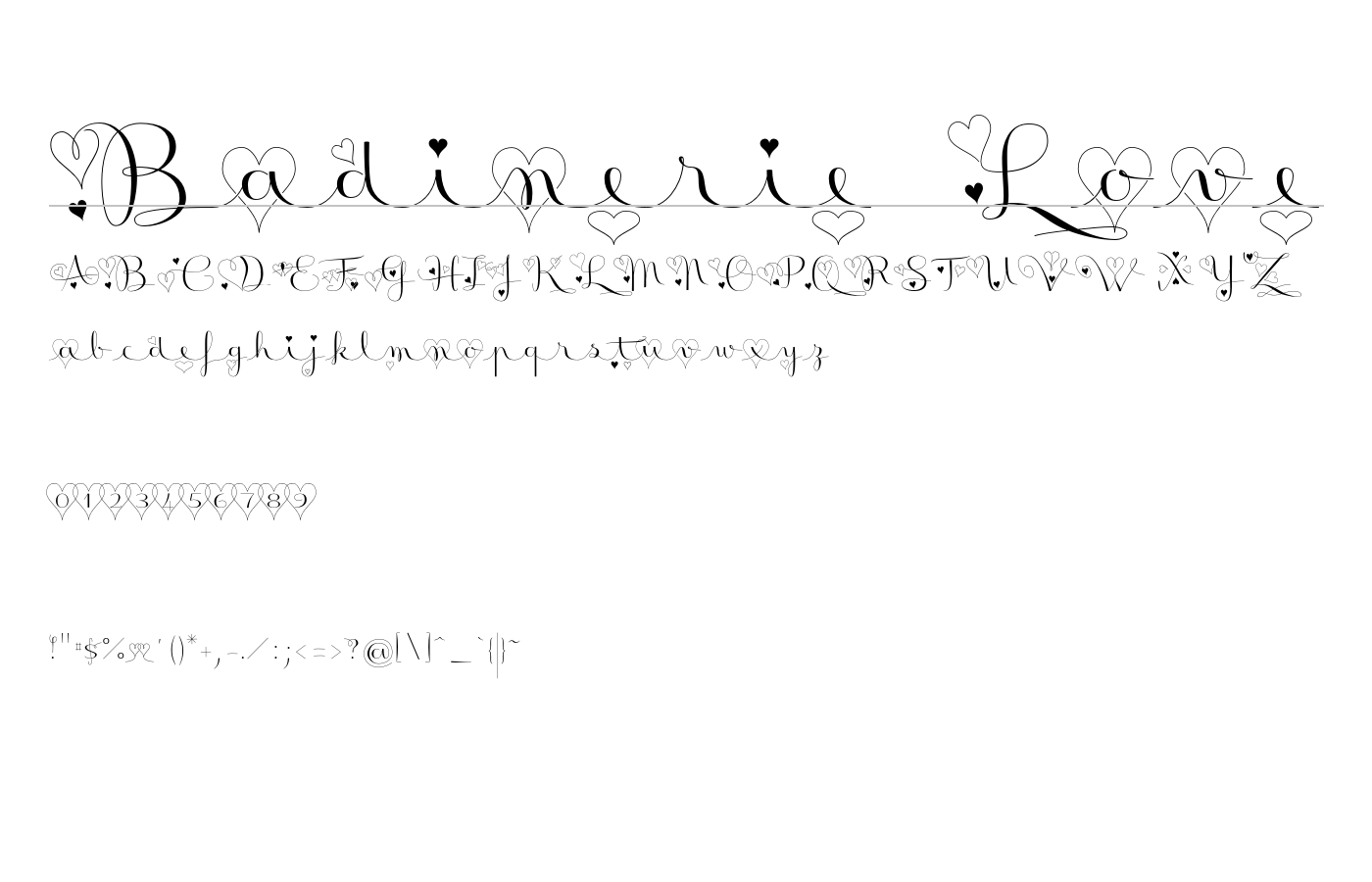
Badinerie is a whimsical, decorative script font that features delicate, flowing lines adorned with playful heart motifs, giving it a romantic and charming personality. Its elegant, light strokes and intricate details make it ideal for invitations, greeting cards, and branding projects that seek a sweet, feminine touch. This font shines best in display uses where its ornamental style can be fully appreciated without sacrificing readability.
Badinerie Font
About Badinerie Font